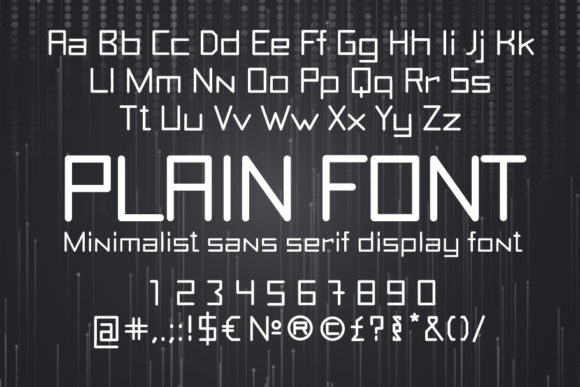
Introduction to Plain Font
Plain is a simple and neat sans serif font.
Key Features of Plain Font
Why Choose Plain Font?
Plain Font offers exceptional quality and versatility, making it a valuable addition to your design toolkit. Whether you’re creating for personal projects or commercial use, Plain Font delivers professional results.